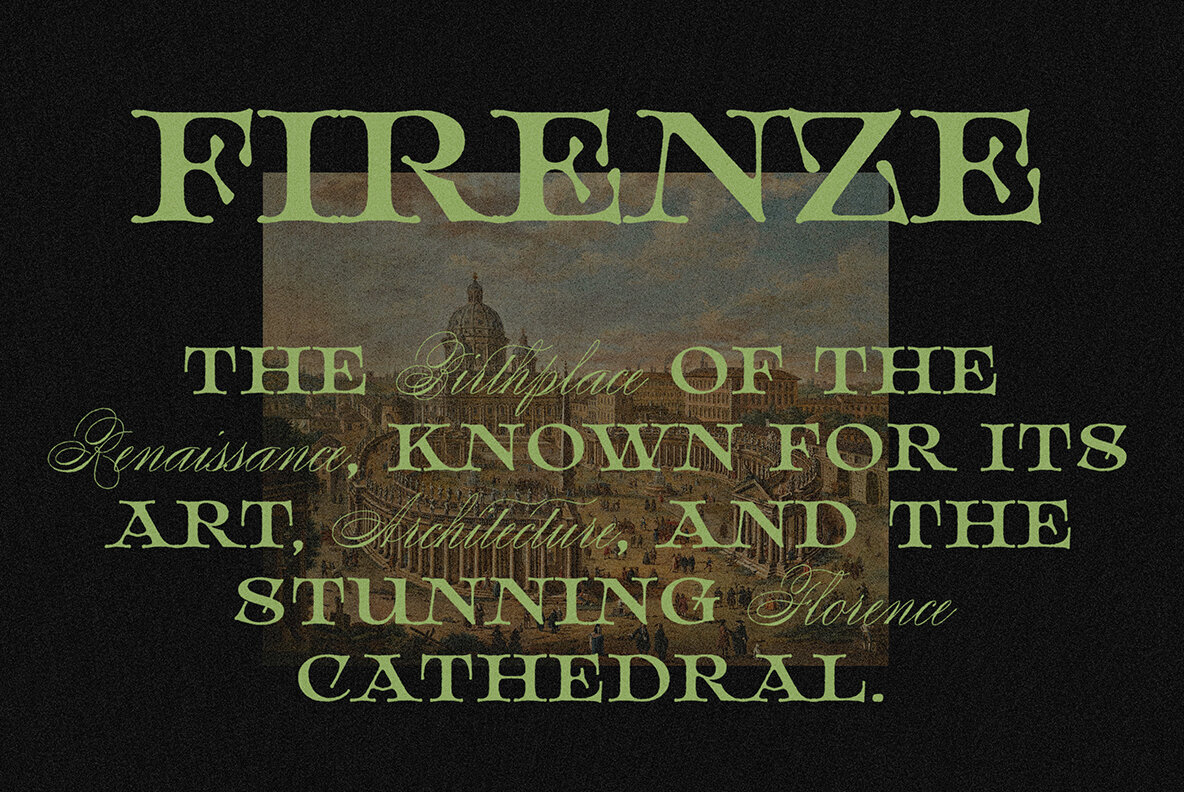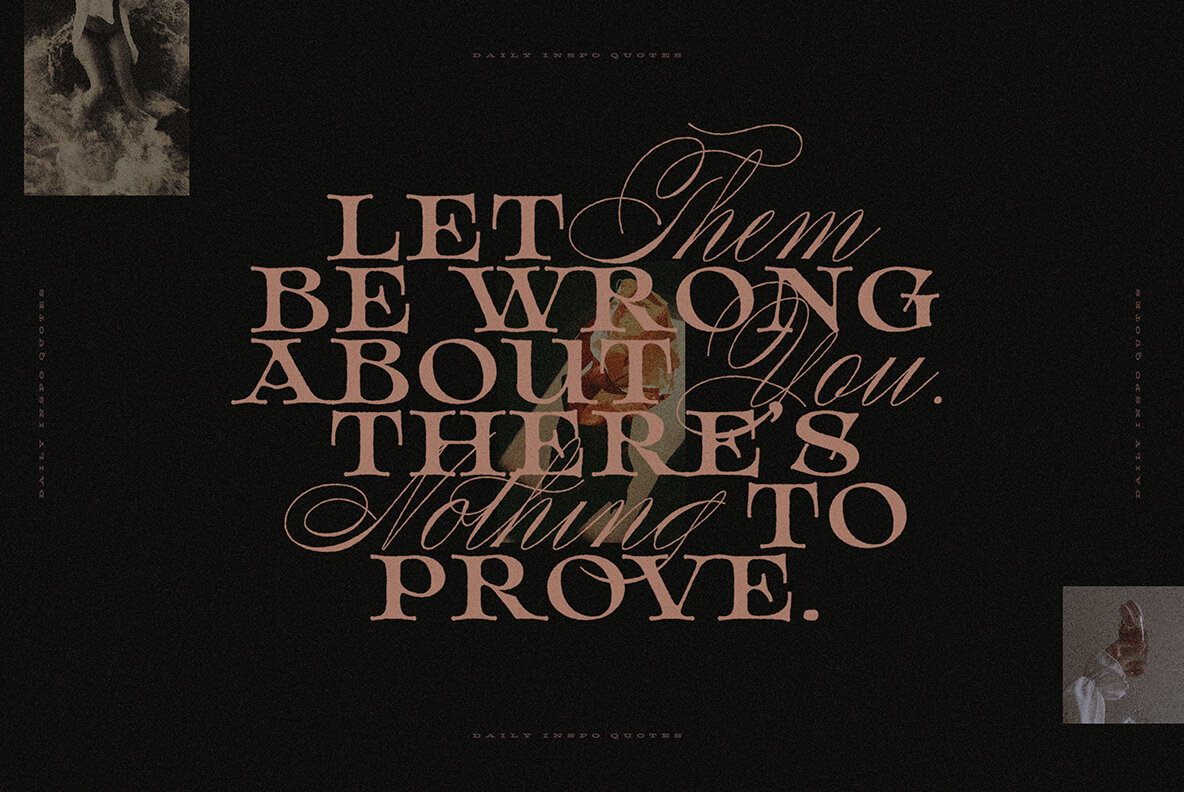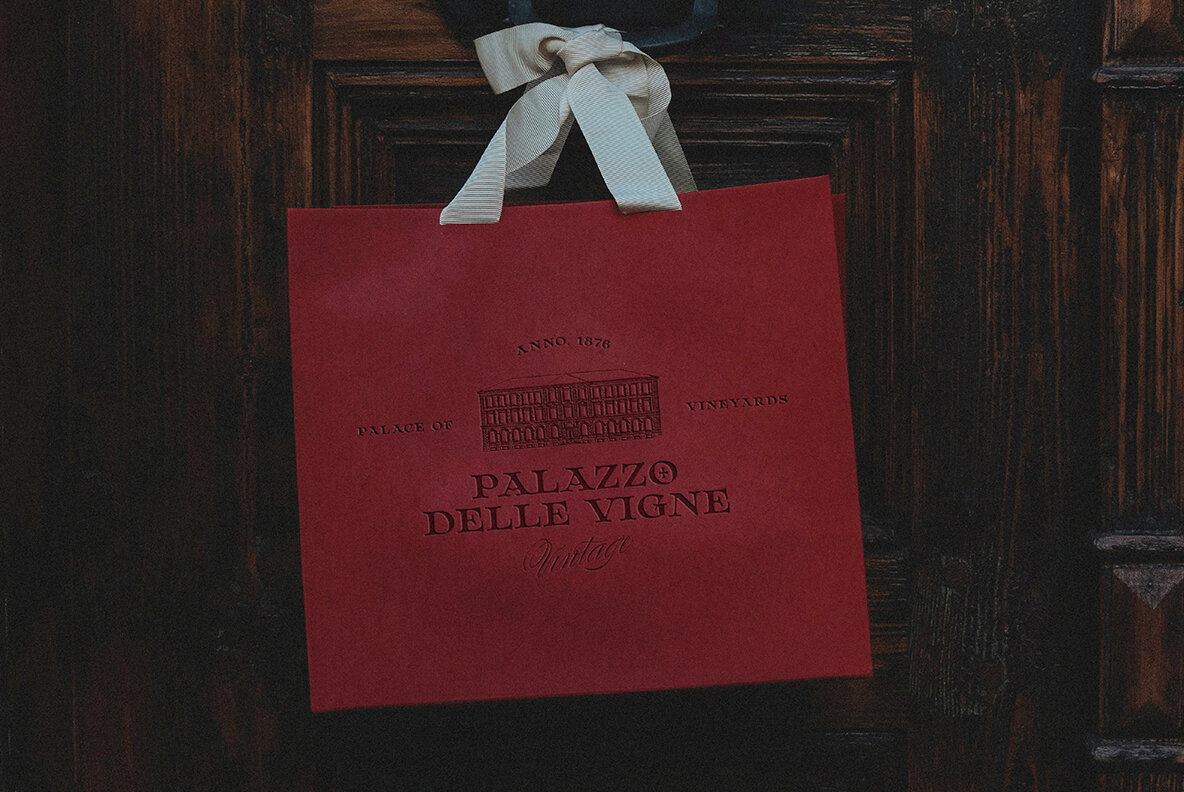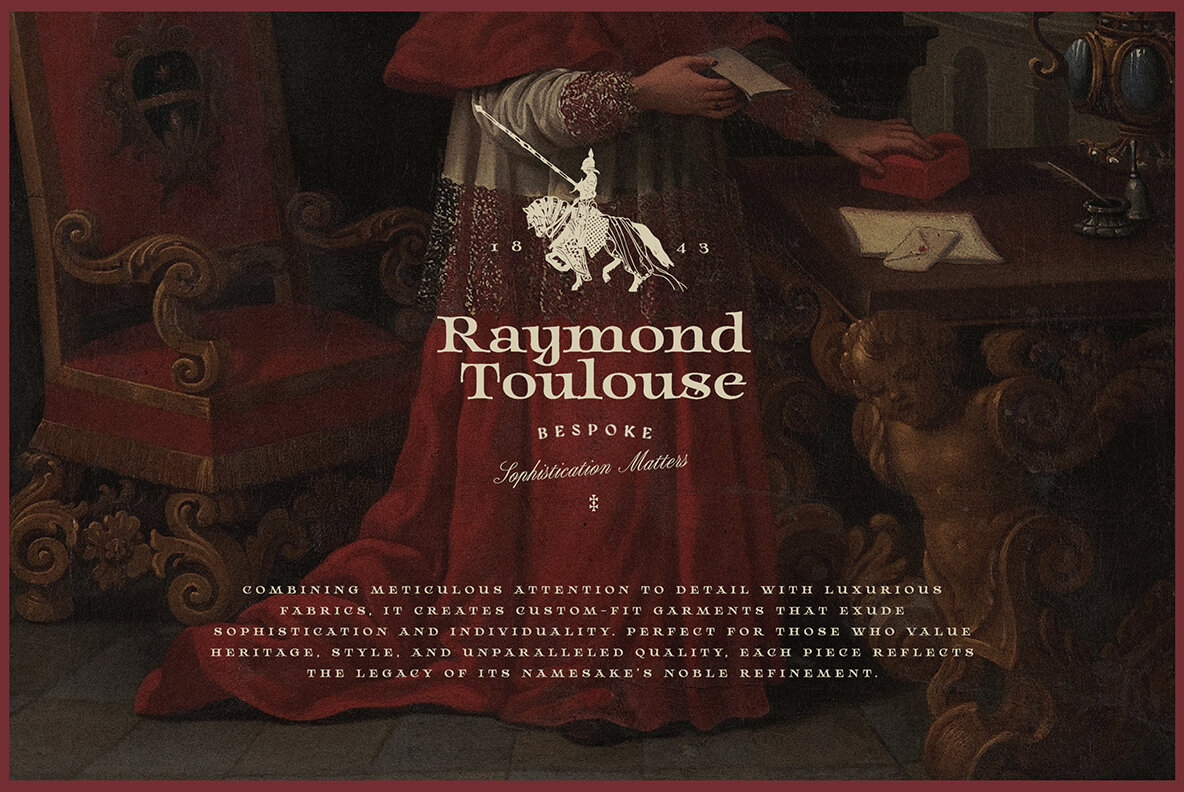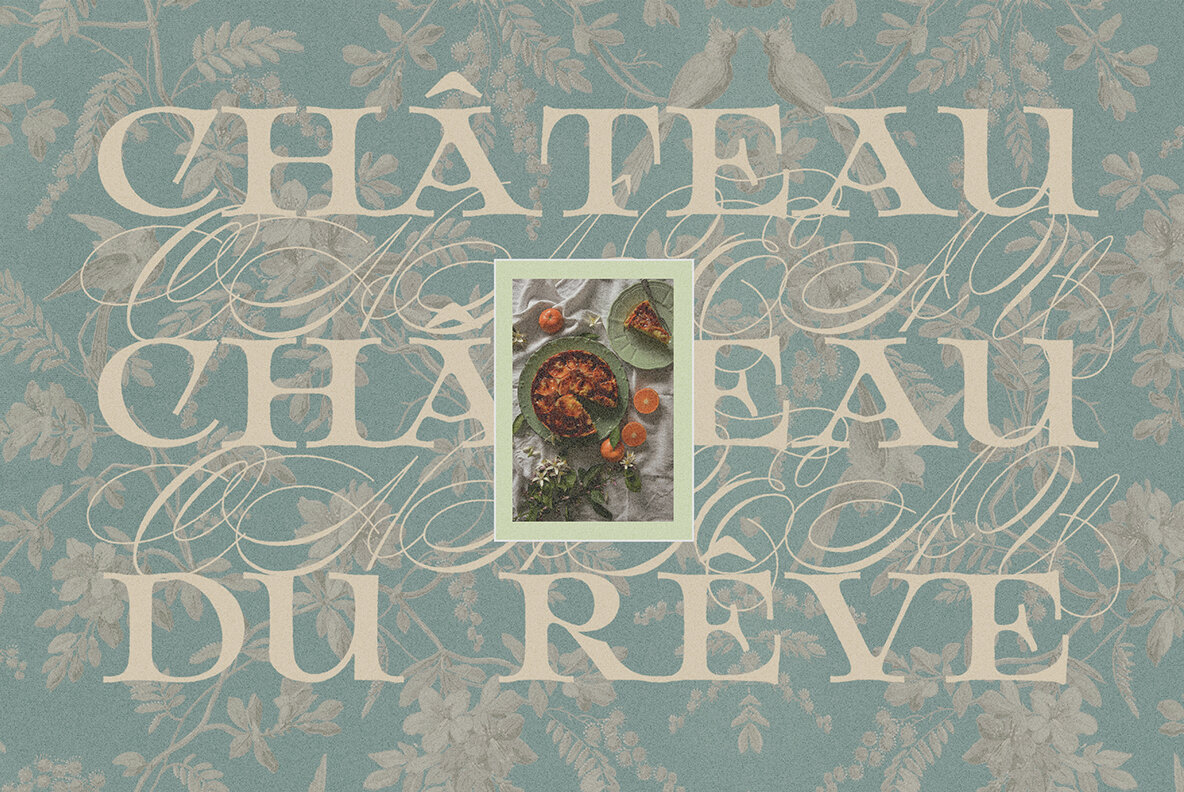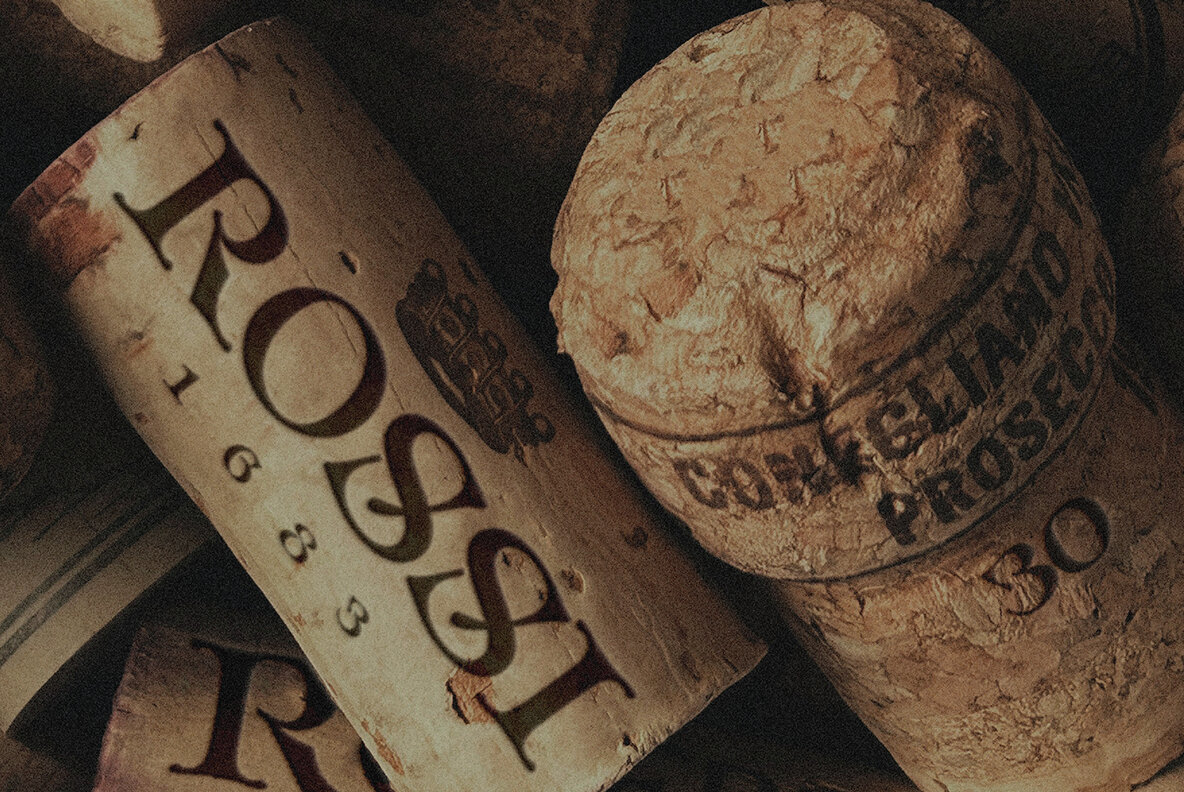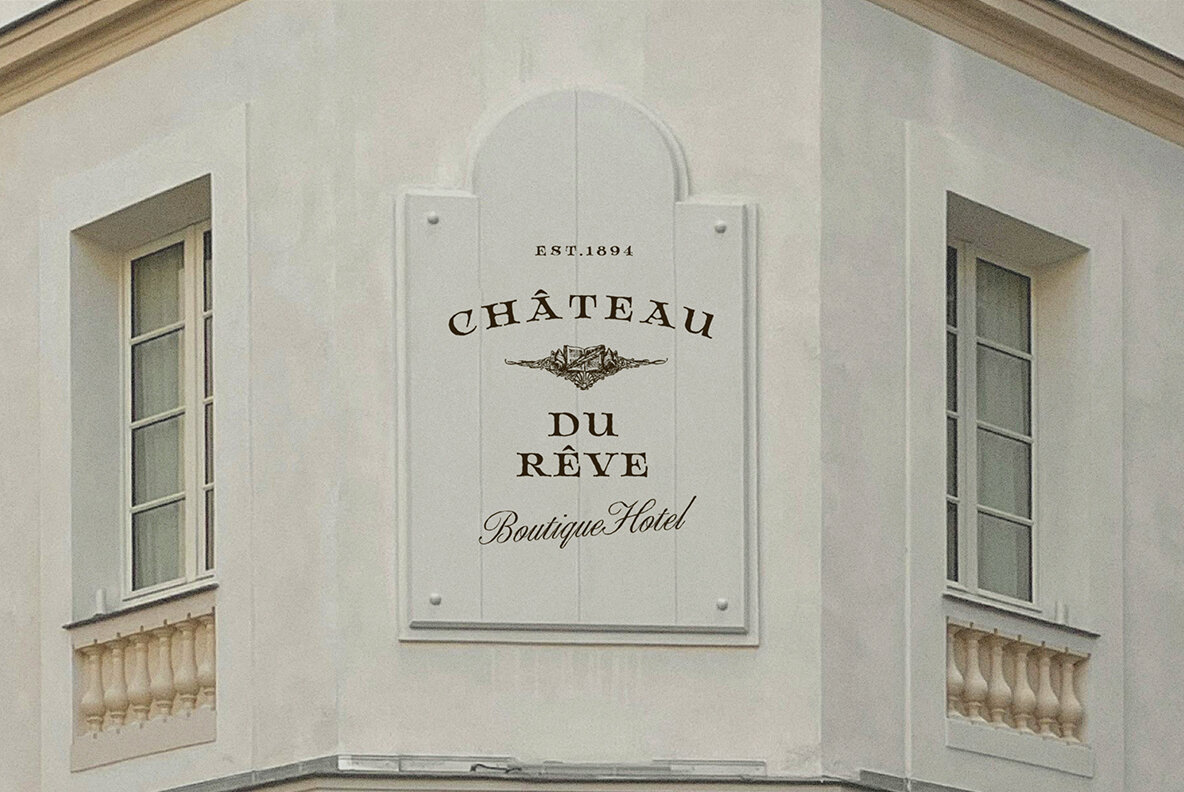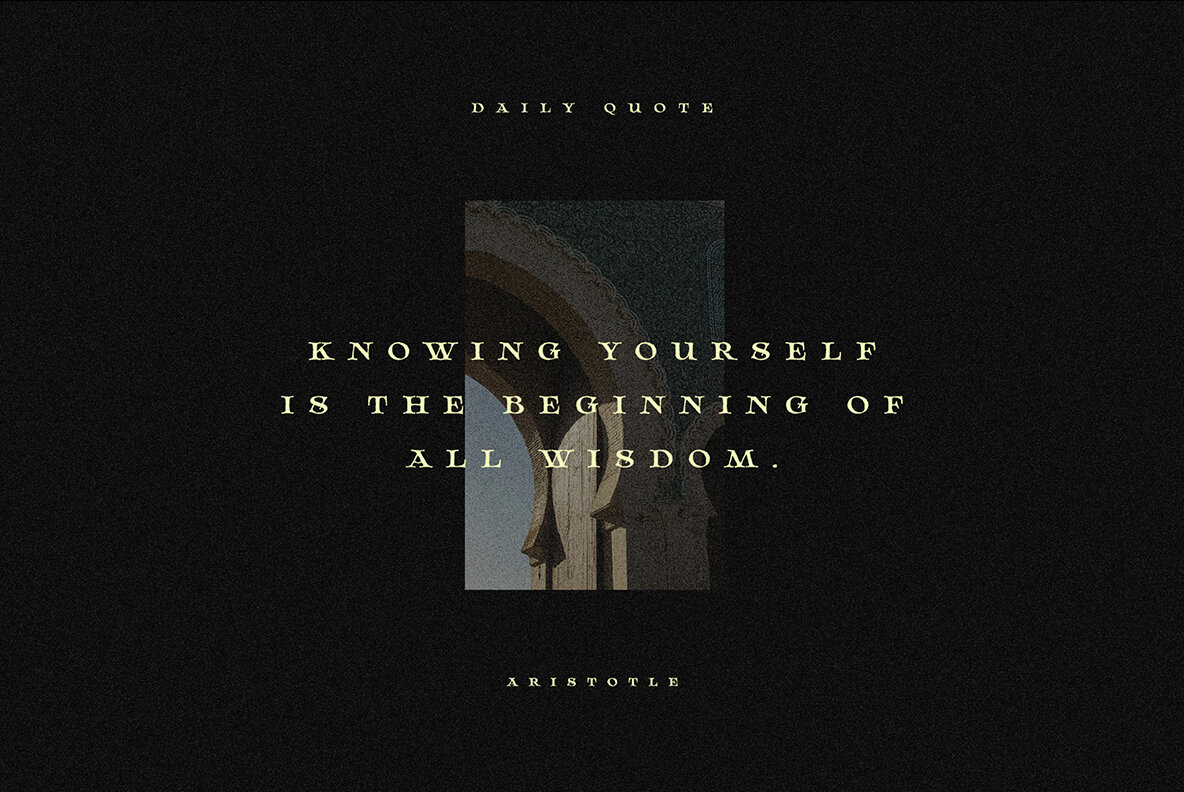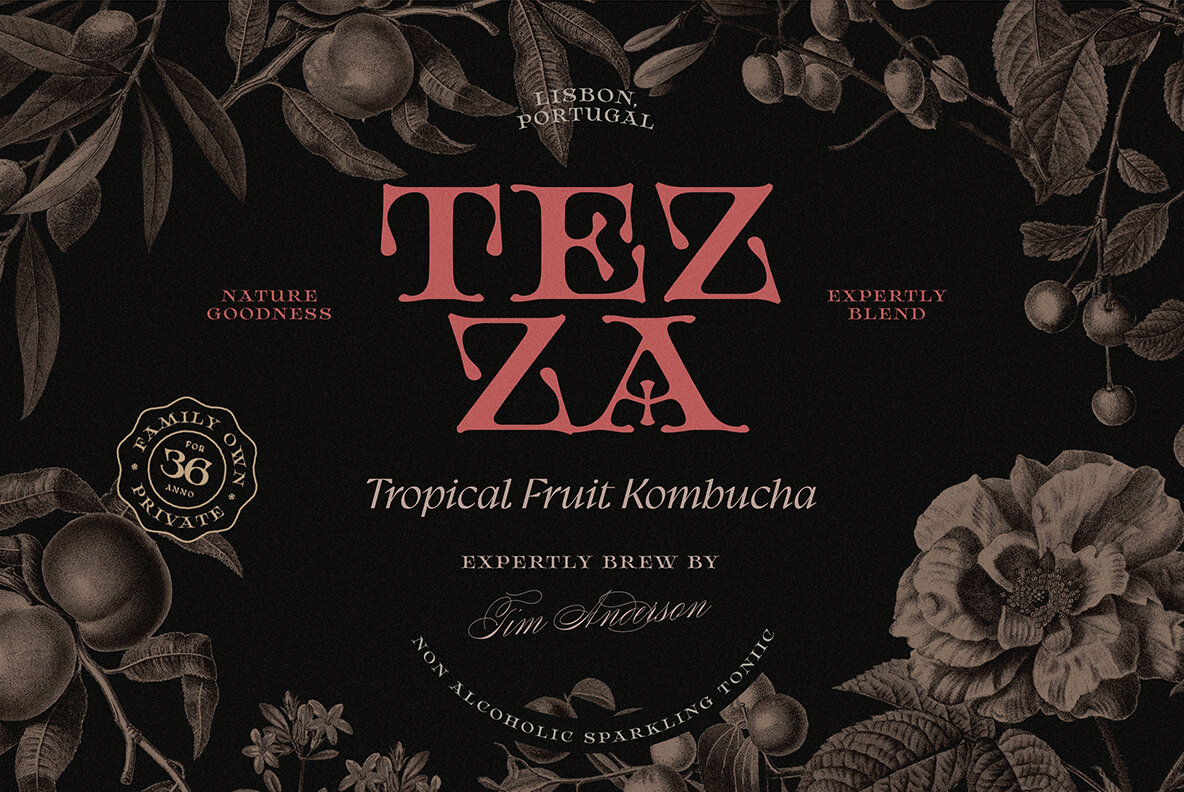
Bradbury Font
Bradbury is a Renaissance-inspired serif typeface that exudes timeless elegance and refined craftsmanship. Seamlessly blending tradition with modern sophistication, it comes in two distinct styles—Regular for a classic, graceful aesthetic and Ornament for an exquisite decorative touch. Perfect for editorial design, branding, and luxurious typography.